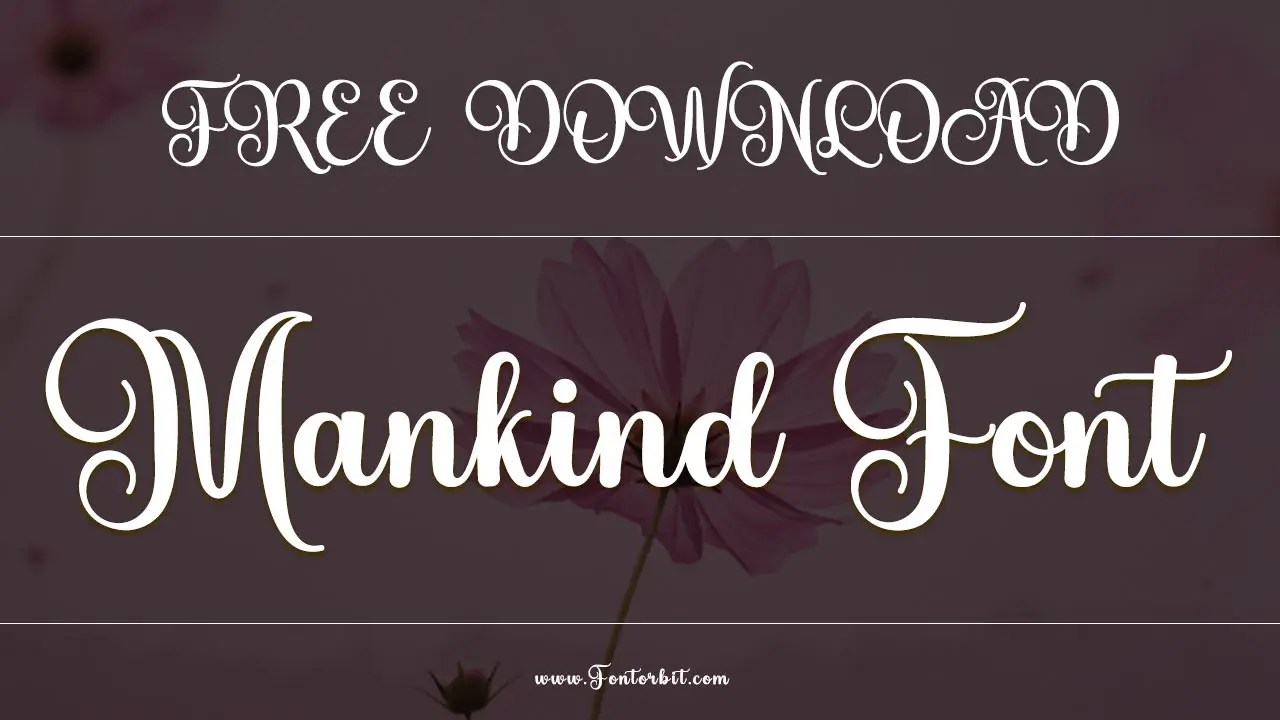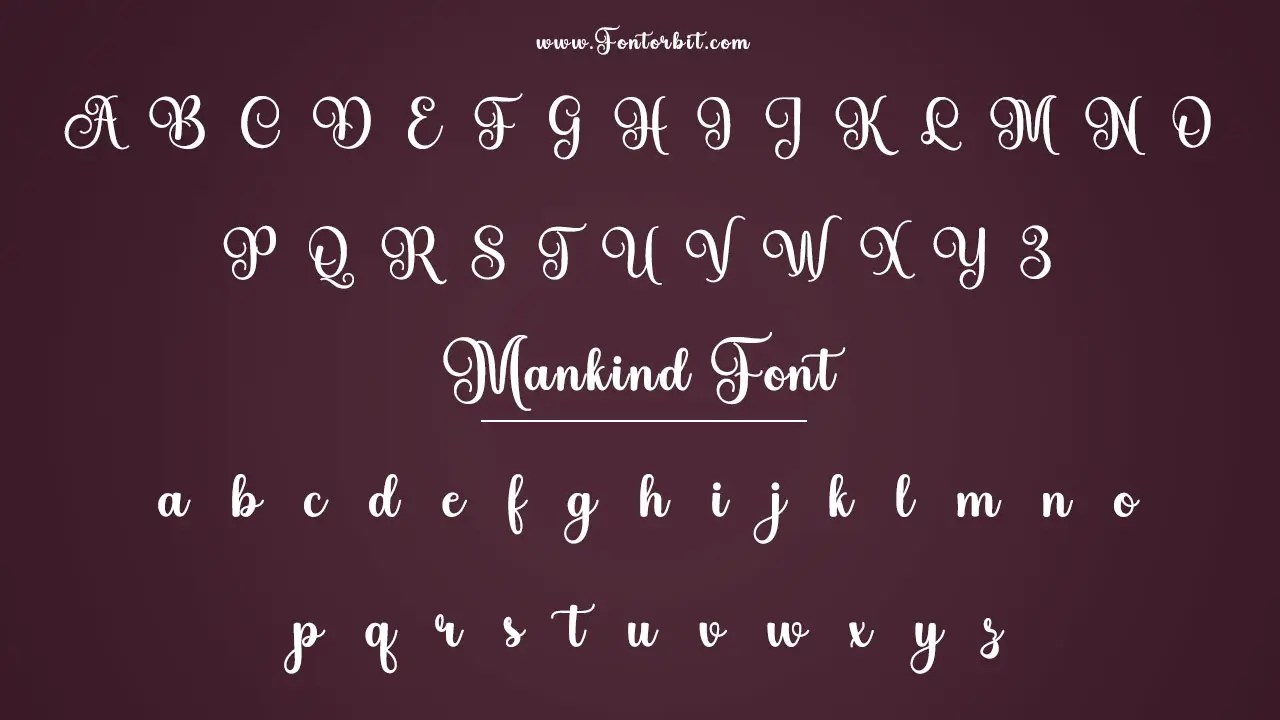
Mankind Font is a sophisticated handwritten script font perfect for various design projects. Designed by Glorytype, this elegant typeface is widely used for branding, posters, stickers, and creative work.
It offers a stylish handwritten feel with extra characters, making it an excellent choice for both web and print designs. Mankind Font is available for free personal use, allowing designers to explore its features without cost. If you’re looking for a beautiful font that combines clarity and elegance, this script font is a must-have.
Key Details Of Mankind Font
- Font Style: Handwritten Script
Mankind Font Family
- Mankind Font Regular
- Mankind Font Italic
- Mankind Font Bold
Why Choose Mankind Font?
- Elegant Handwritten Design – A beautiful font that adds sophistication to any project.
- Versatile Use – Ideal for logos, posters, templates, and creative projects.
2.Does Mankind Font Support Multiple Languages?
Yes, it includes extra characters for extended language support.
3.What Category Does Mankind Font Belong To?
It is a handwritten script font.
6.Does Mankind Font Have Different Styles?
Yes, it includes Regular, Italic, and Bold variants.
7.Is This Font Suitable For Logos?
Absolutely! It is widely used for branding and logo design.